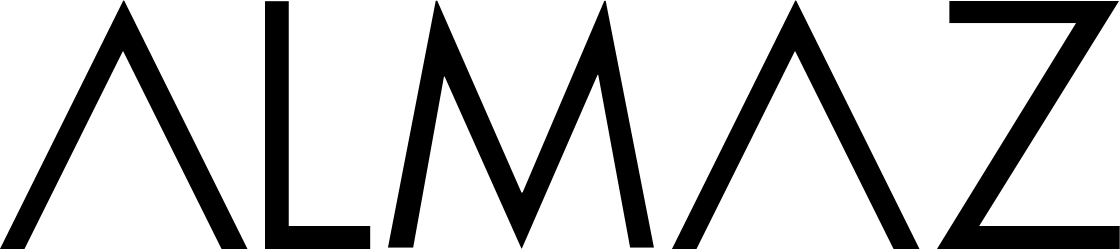
Almaz Font
Almaz fits the bill if you are after a sans serif font for your text-based layouts. This one comes with medium characters and suits branding, bag shops, posters, and so on. Remember that this modern sharp font is a demo and doesn’t contain some numbers and punctuation. Don’t hesitate and give it a chance to inspire all your customers.